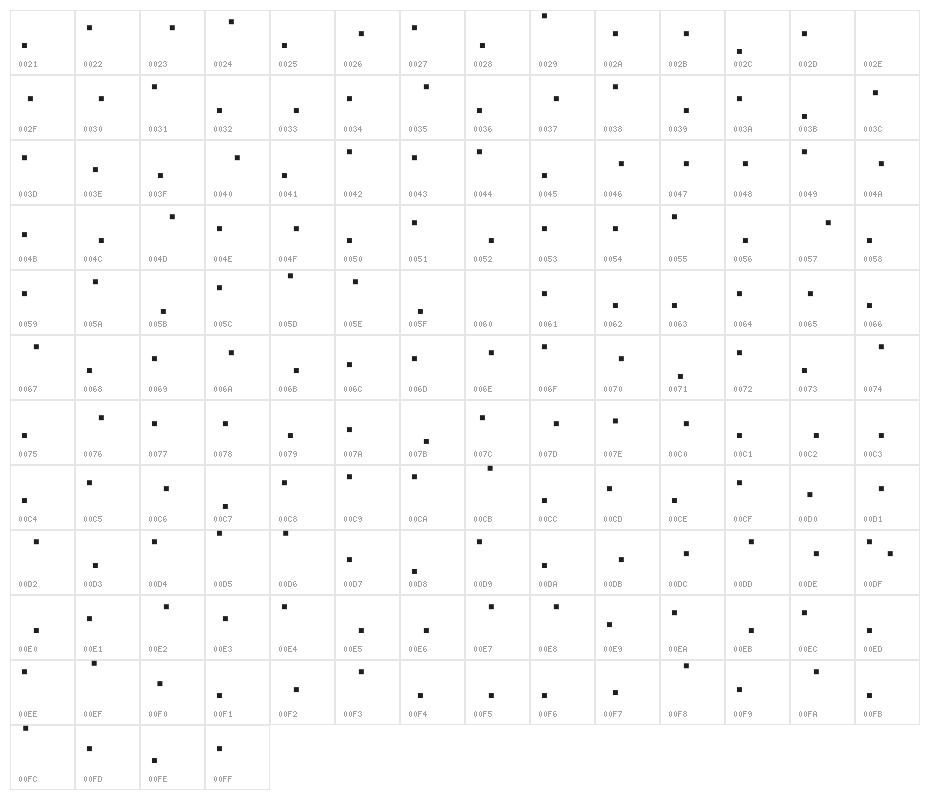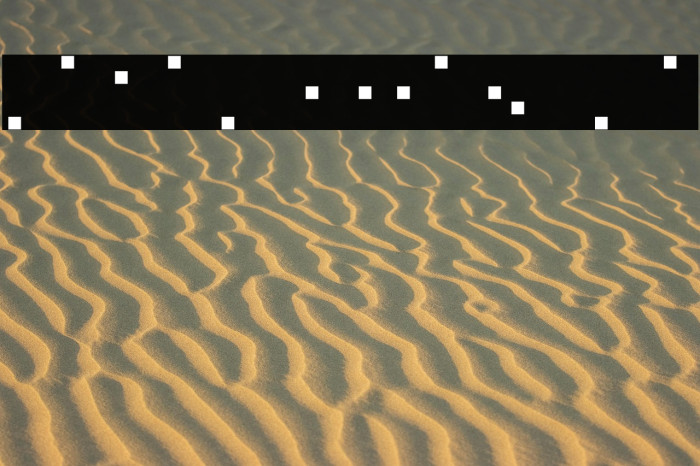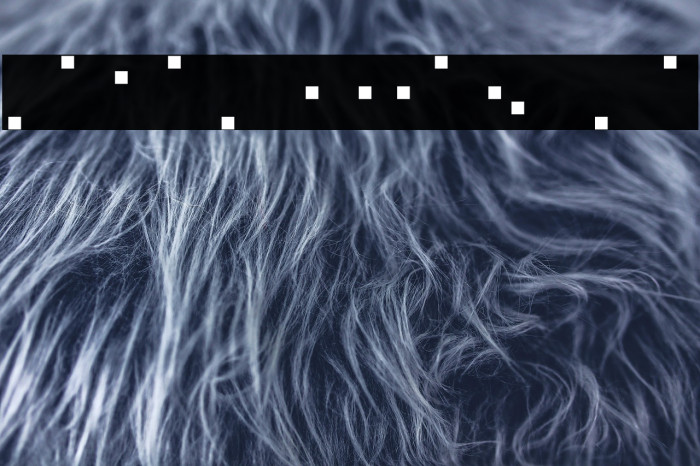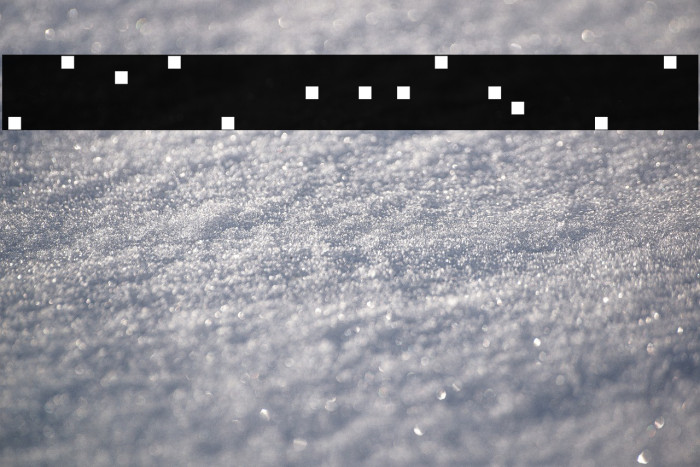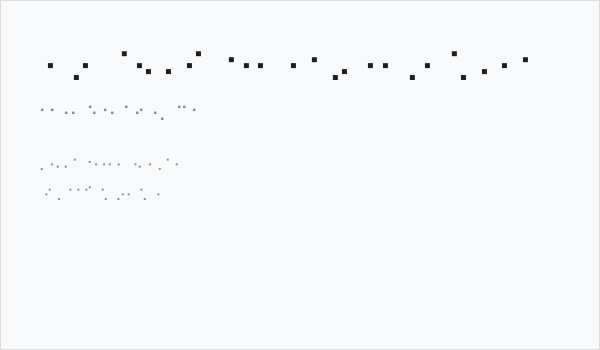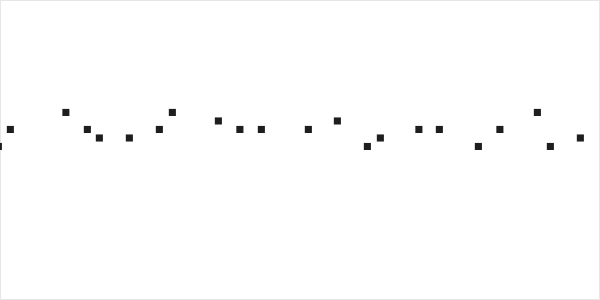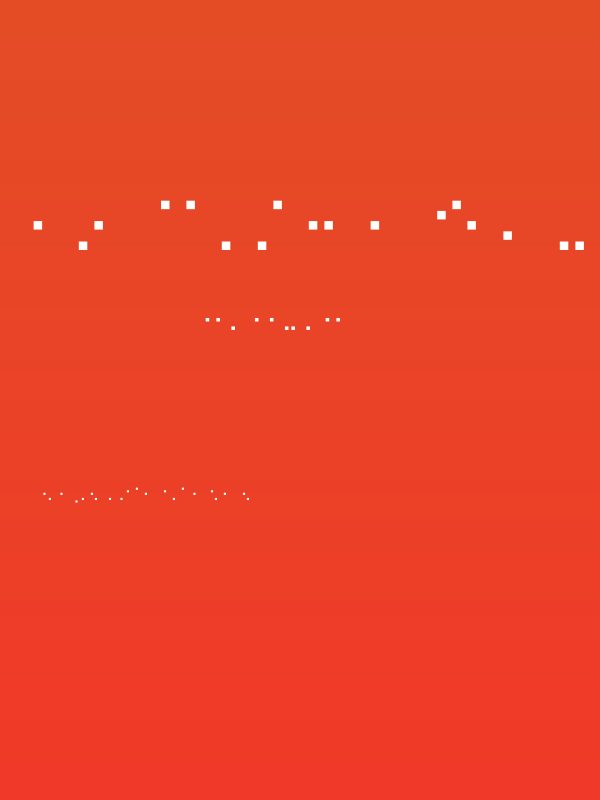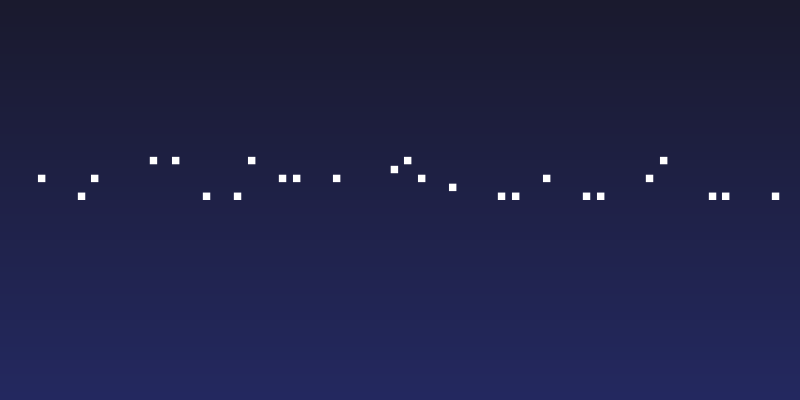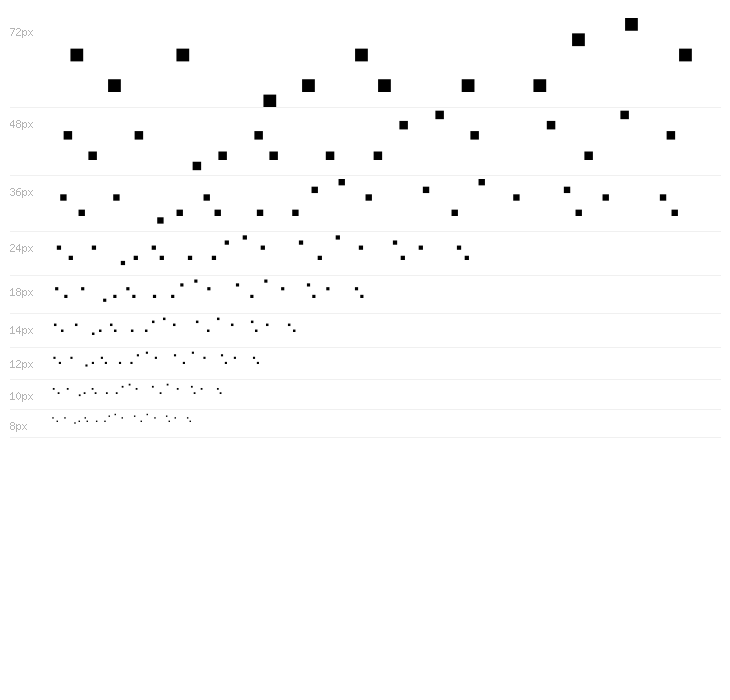
TRSMillionTwinkle-Regular Font
TRSMillionTwinkle-Regular Description
This font is a decorative display typeface characterized by its unique and playful design. Each character is composed of small dots, creating a twinkling effect reminiscent of stars in the night sky. The font maintains a consistent dot pattern across all characters, providing a cohesive and whimsical appearance. It is particularly suitable for creative projects where a sense of fun and lightness is desired. The spacing between characters is normal, ensuring readability while maintaining its decorative nature.